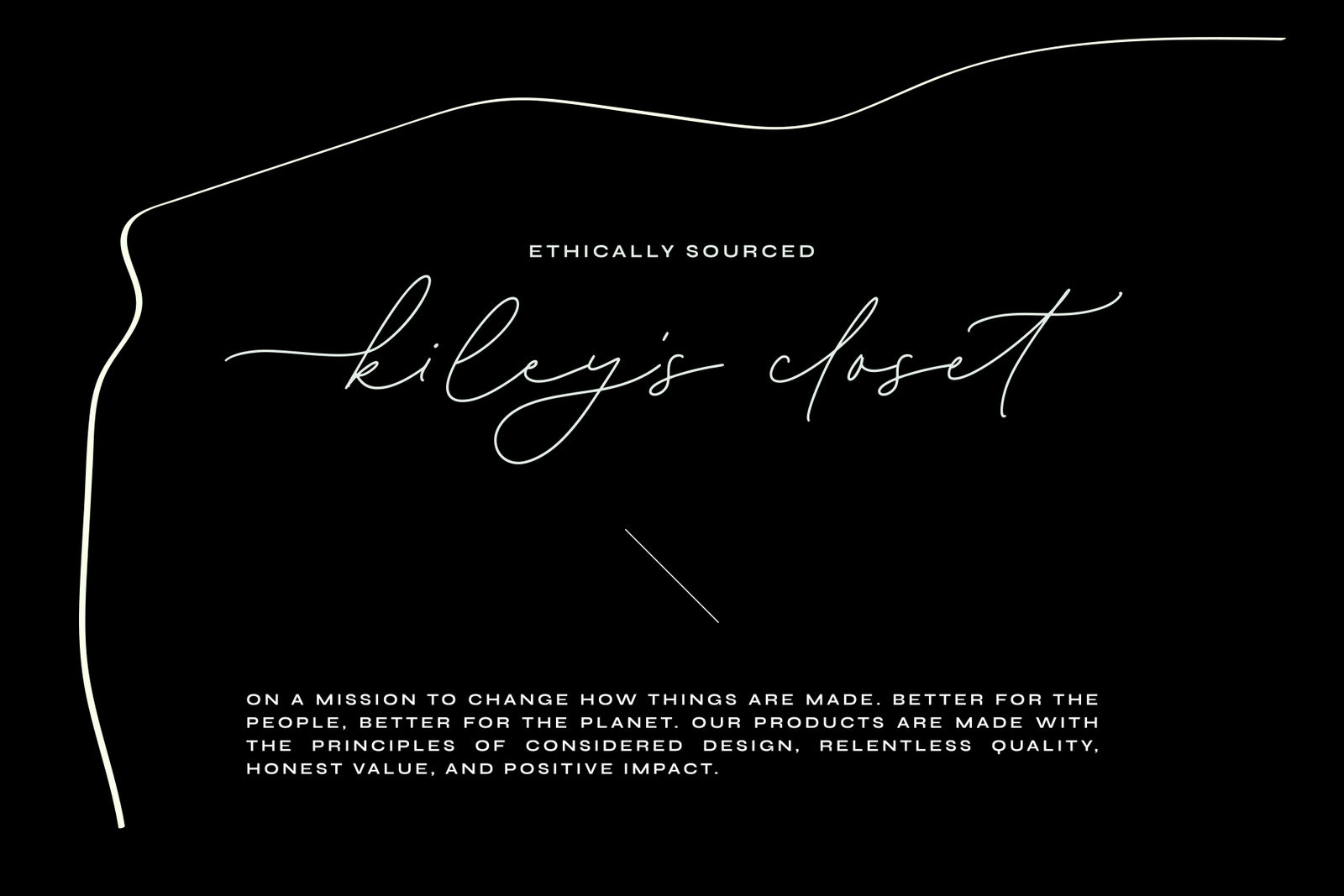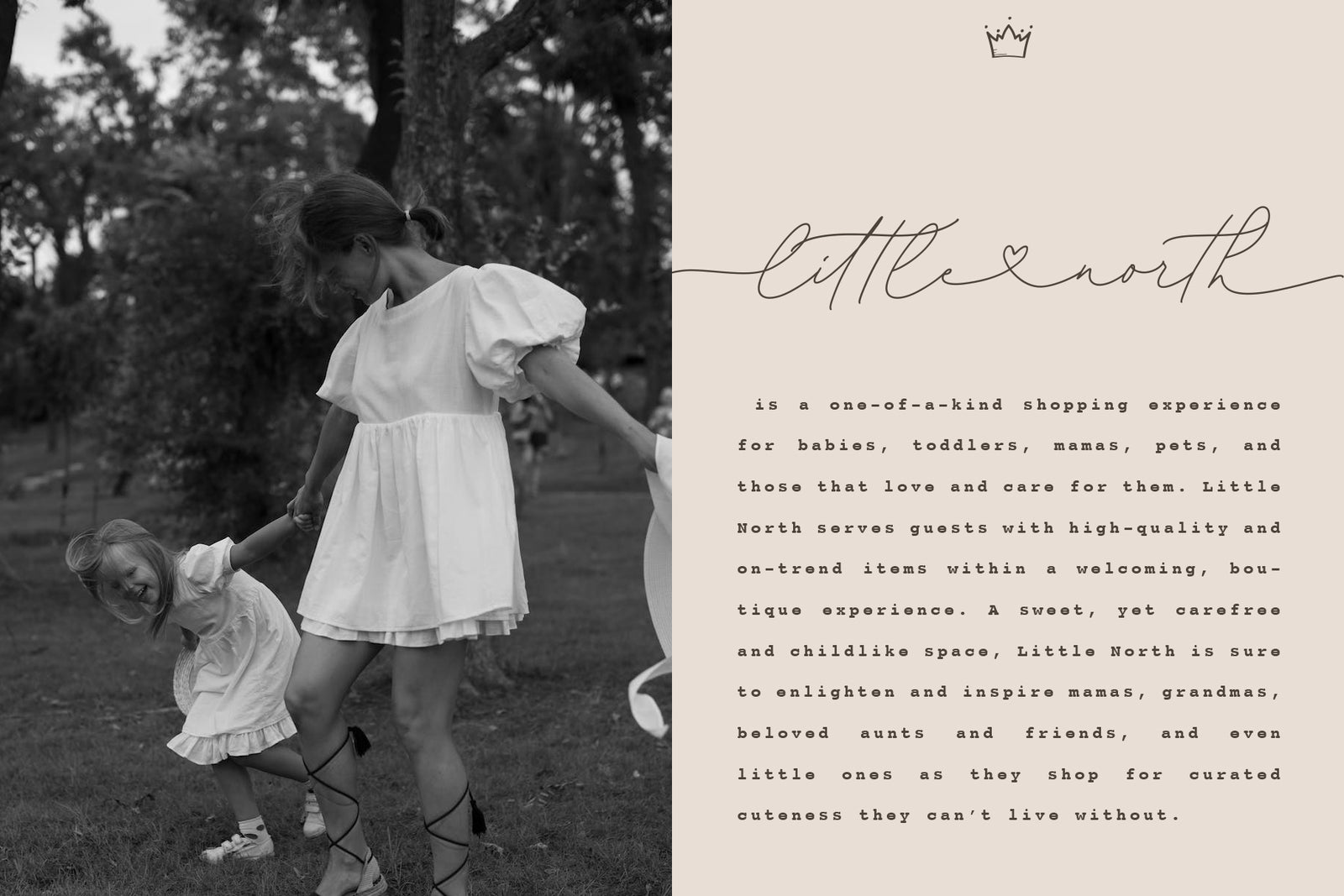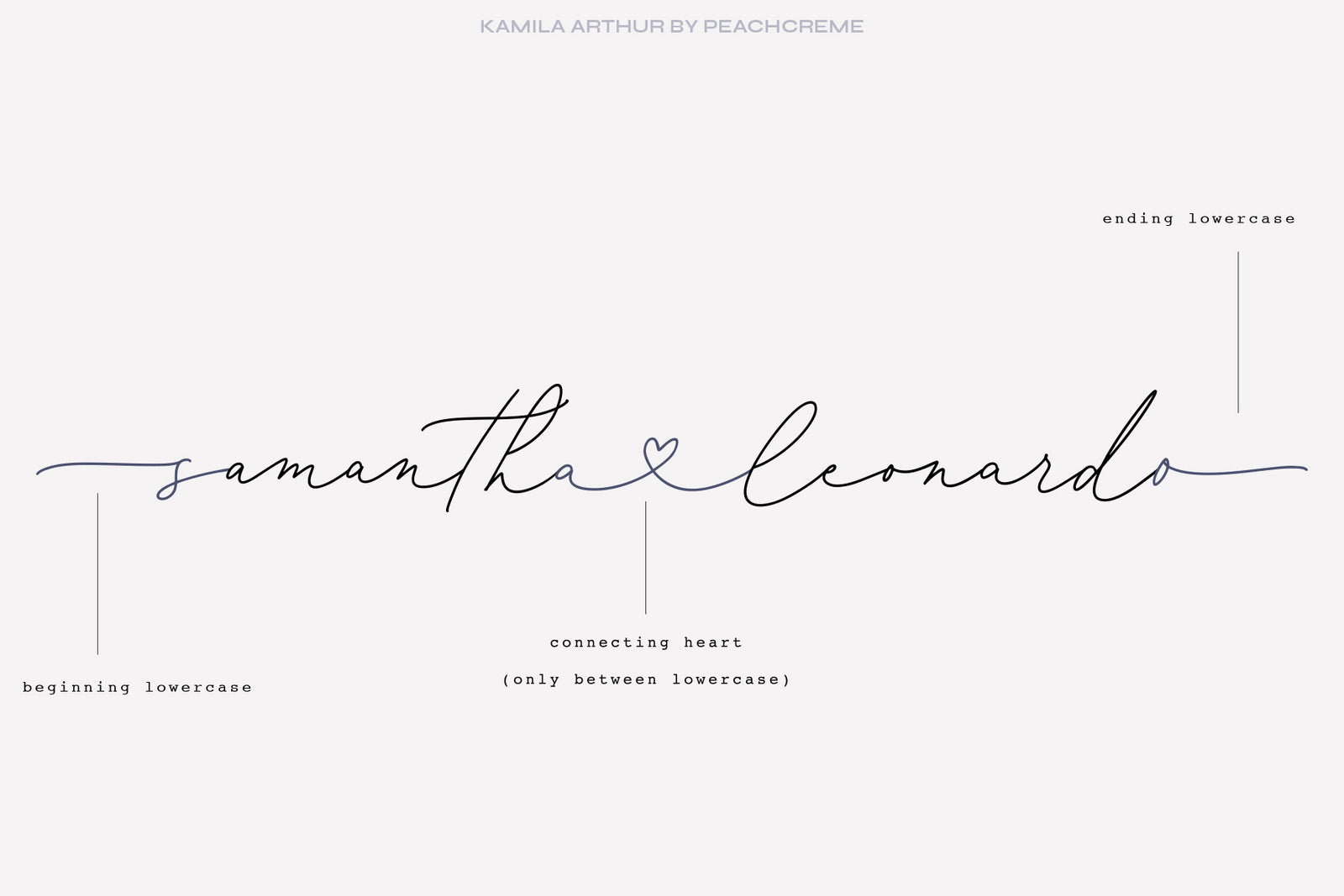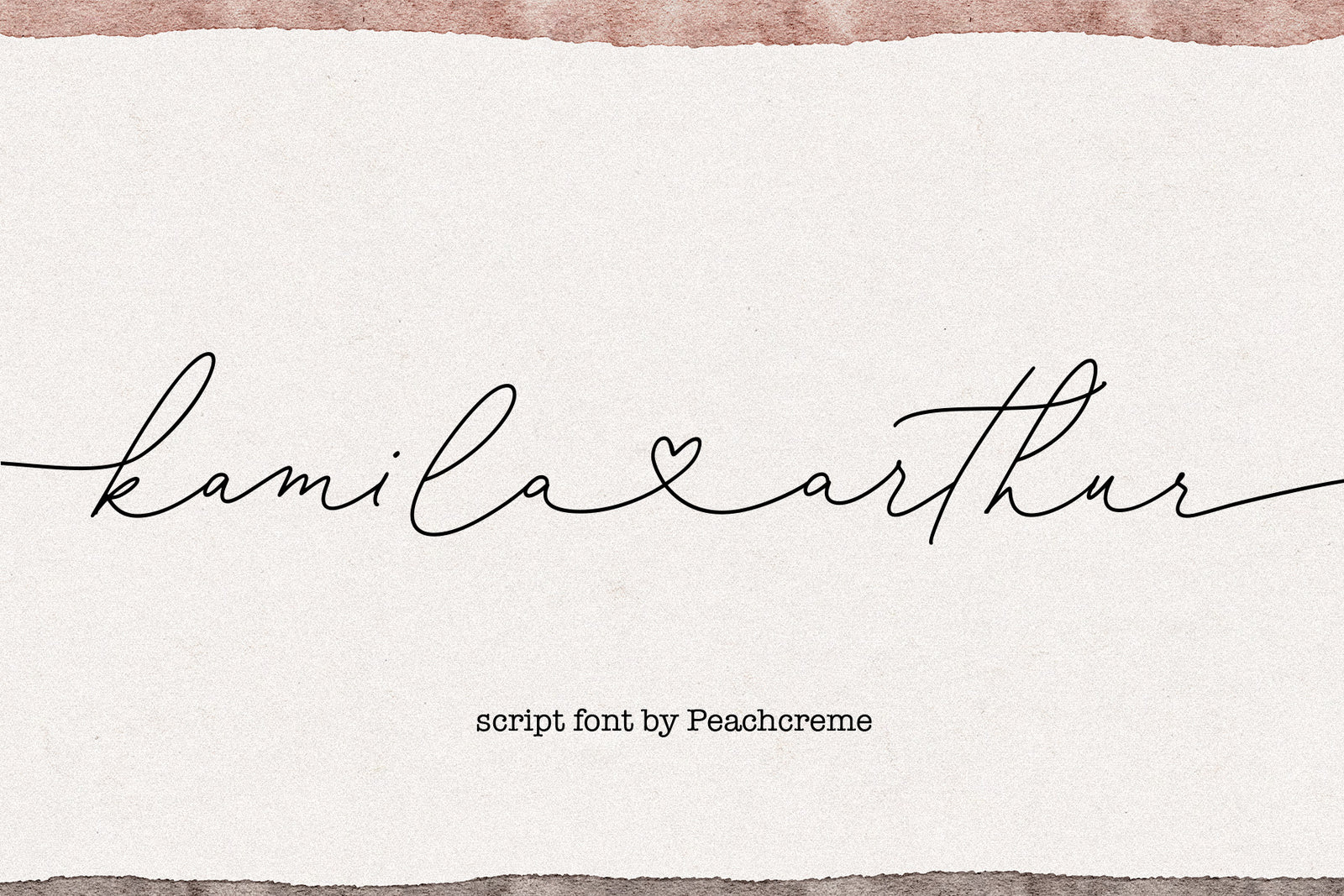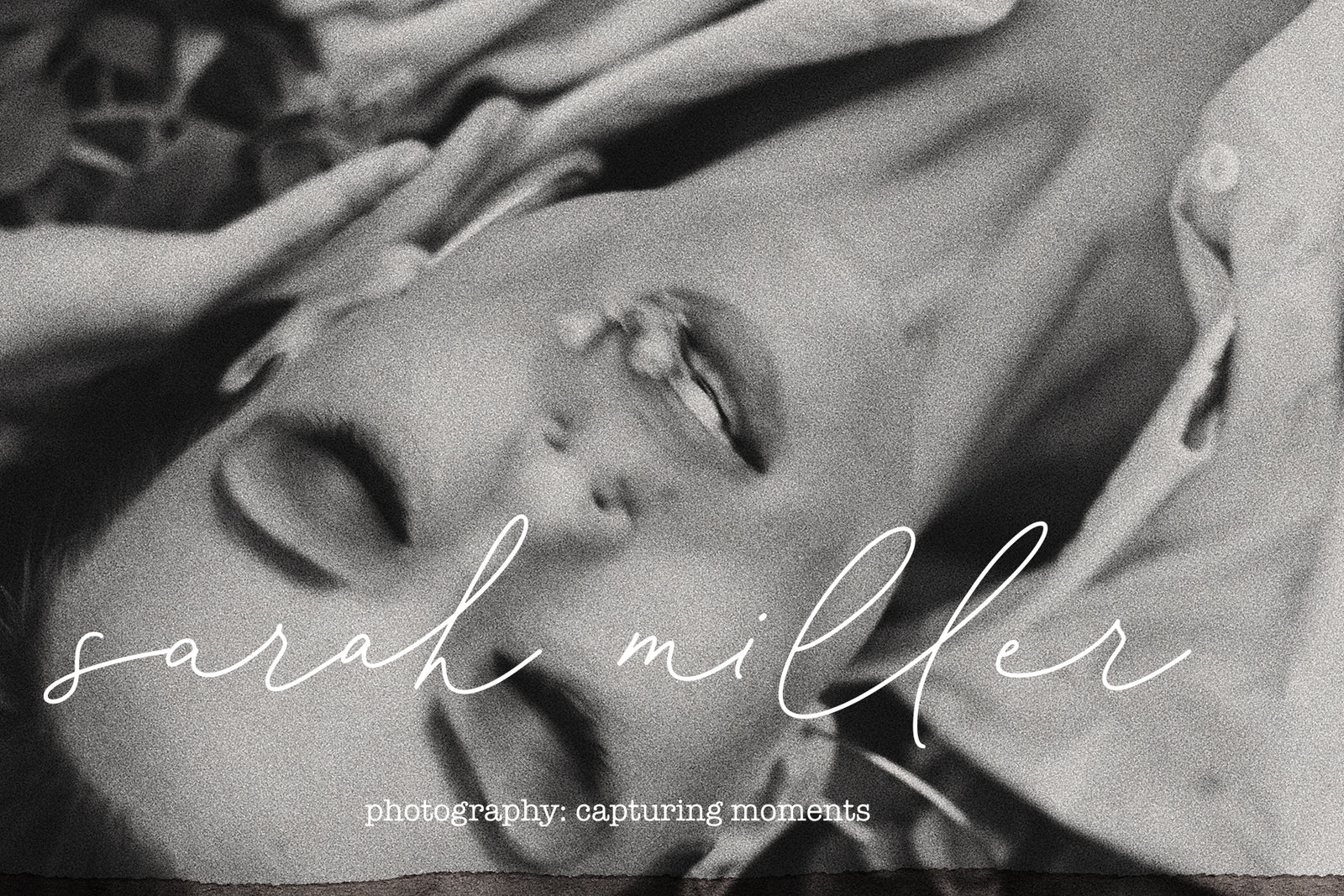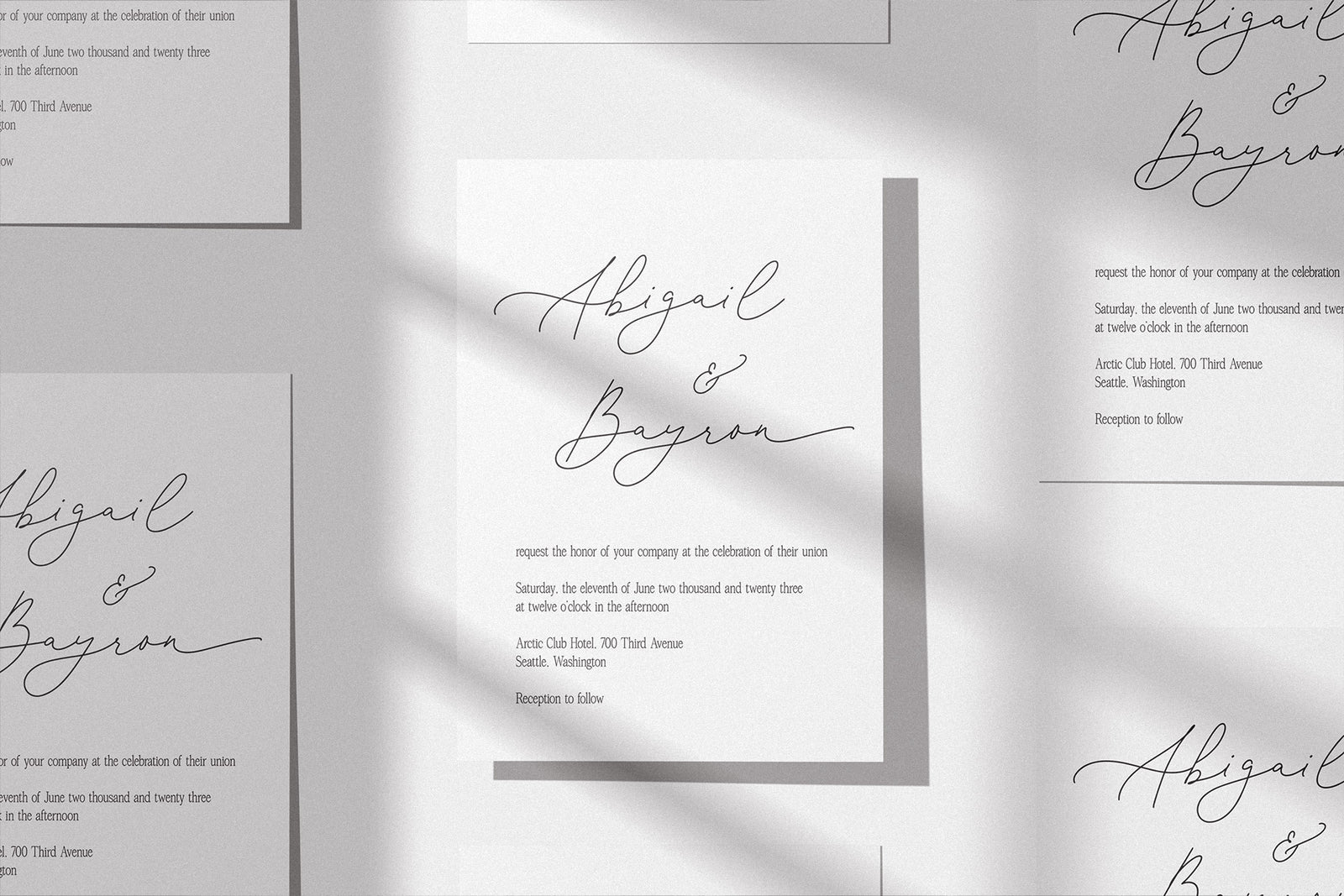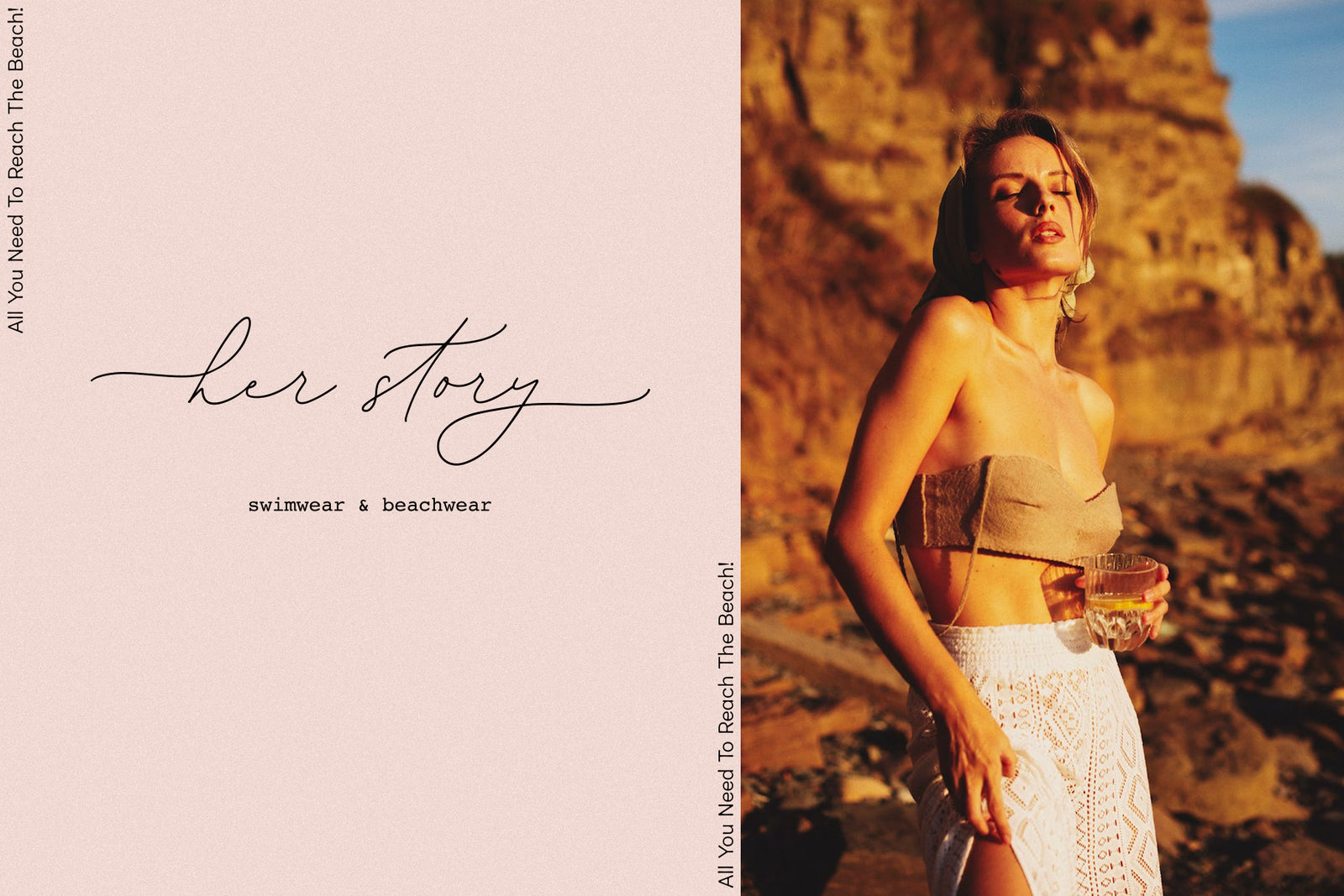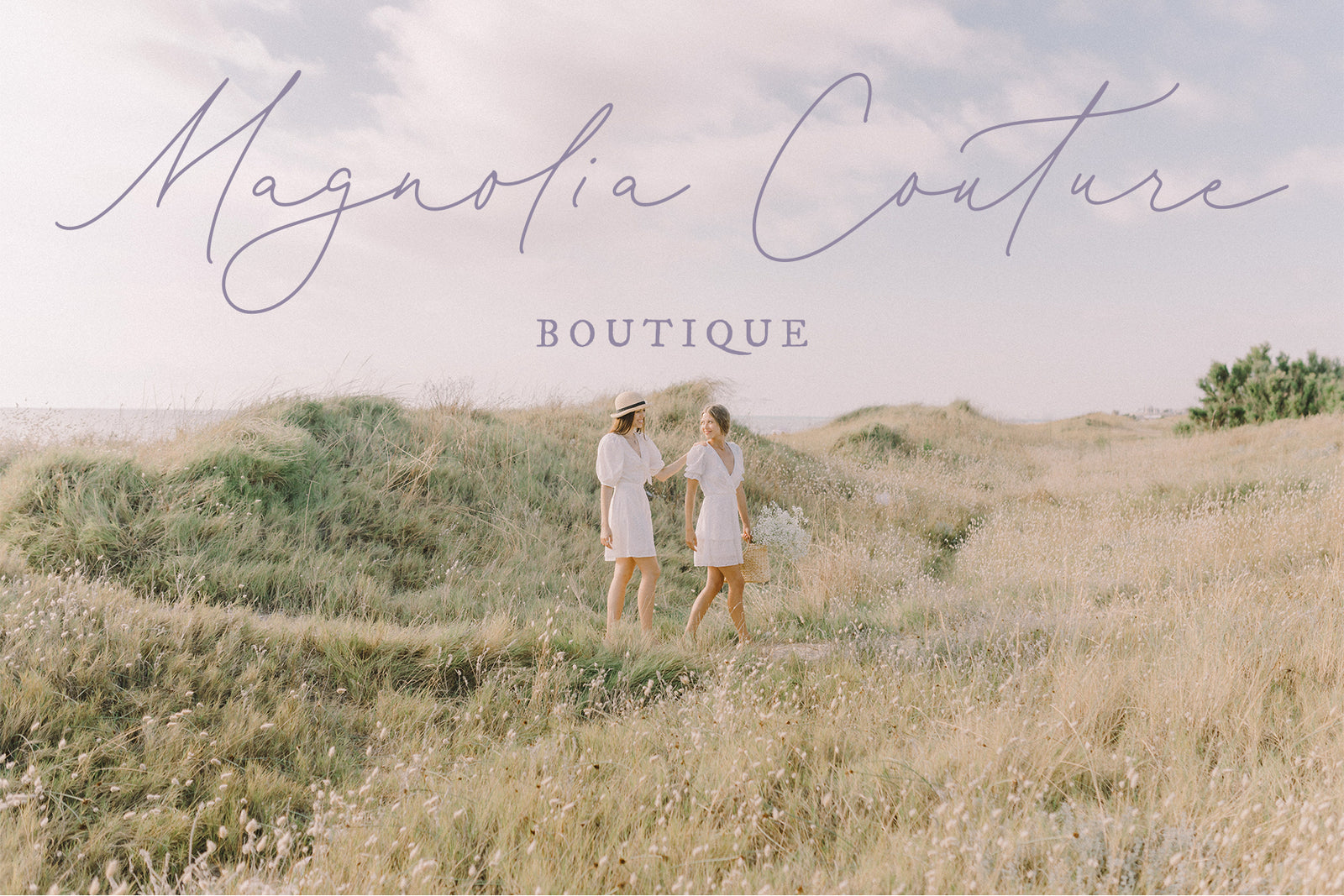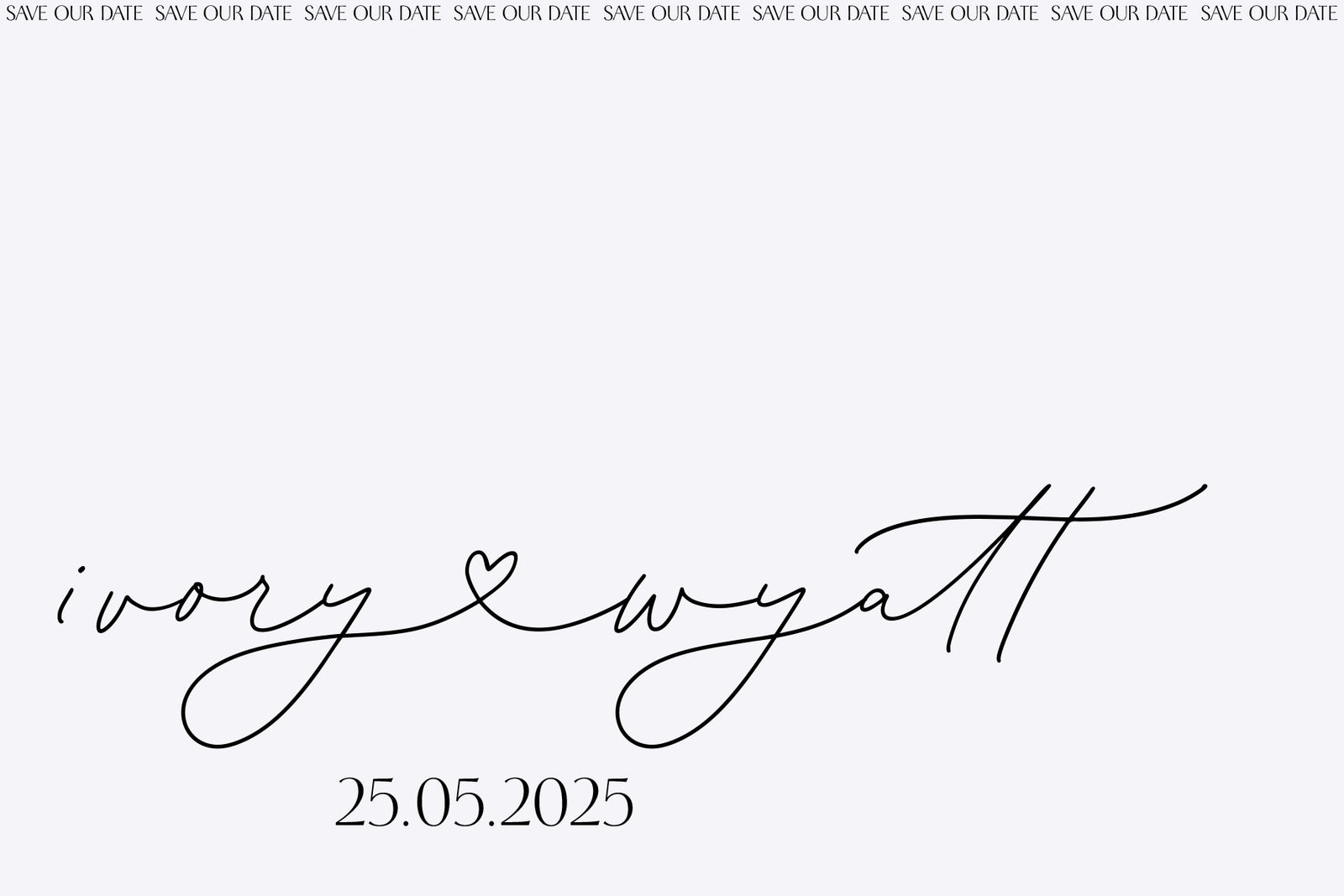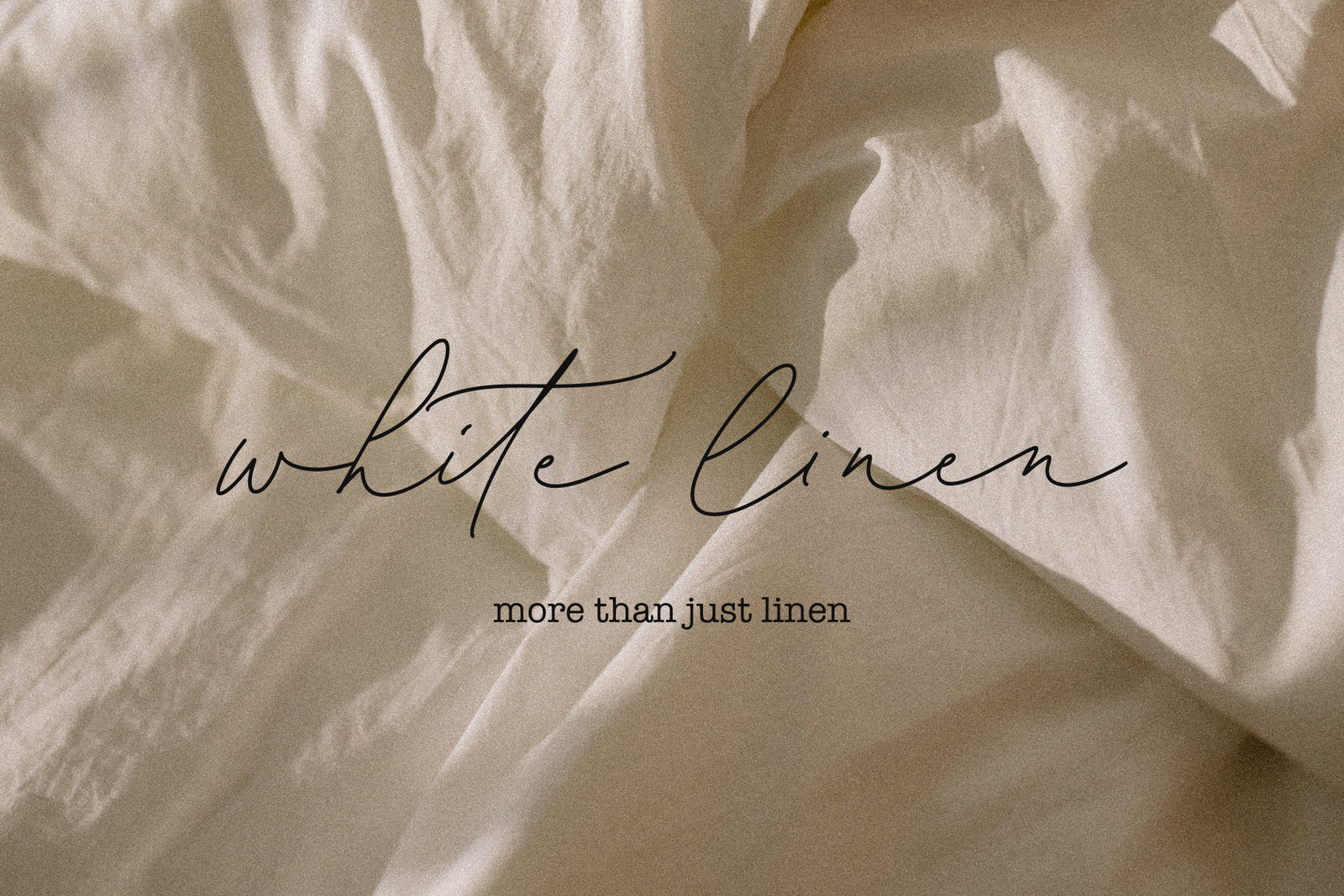
Kamila Arthur // Modern Heart Font
We're excited to introduce "Kamila Arthur," our new lovely script font. "Kamila Arthur" was inspired by clean handwriting with a natural monoline flow. It contains lovely beginning, ending and connecting lowercase heart swashes. It appears to be an excellent tandem for minimalist wedding designs. Please, note that heart glyphs connect only lowercase letters.